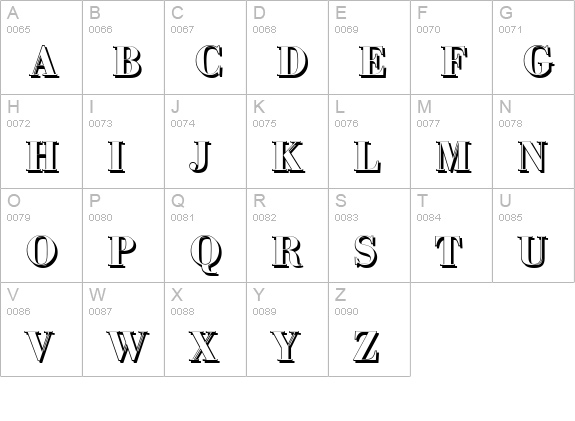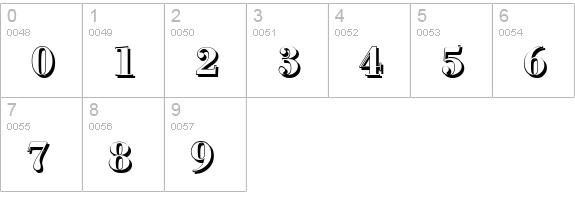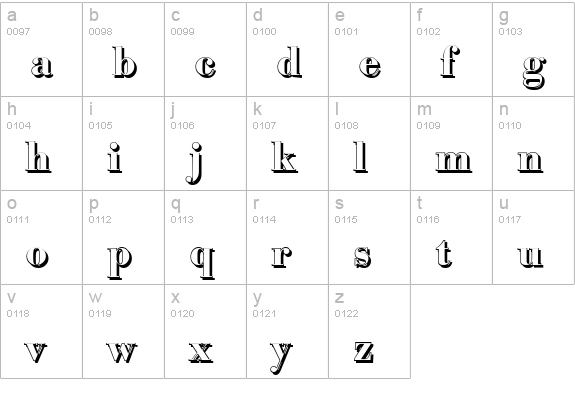
BodoniShadow-Bold is a strong, high-contrast variant in the BodoniShadow typeface family \xE2\x80\x94 well suited to headlines, attention-grabbing titles, and strong calls-to-action.
BodoniShadow-Bold font is a stylish and elegant typeface that exudes sophistication and charm. With its sharp serifs and bold strokes, this font commands attention and adds a touch of class to any design project. The strong contrast between thick and thin lines creates a dramatic effect that makes text stand out on the page. This font is perfect for headlines, titles, and other display purposes where you want to make a statement. Its timeless design is versatile and can be used in both modern and classic design styles. Whether you are creating a poster, logo, or branding materials, BodoniShadow-Bold font will add a touch of elegance and professionalism to your work. Best of all, BodoniShadow-Bold font is free to download at FontsMarket.com. This means you can easily access this high-quality typeface and use it in your projects without any cost. Don't miss out on this fantastic opportunity to enhance your designs with BodoniShadow-Bold font today!